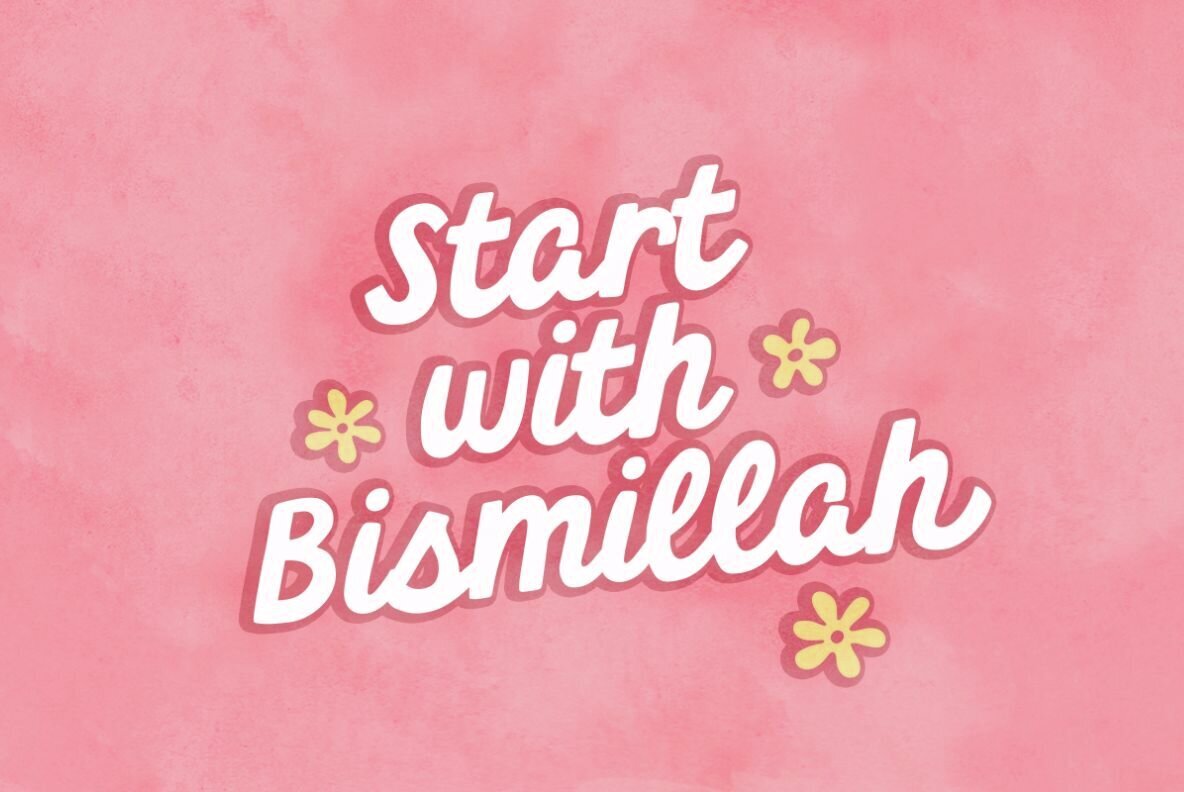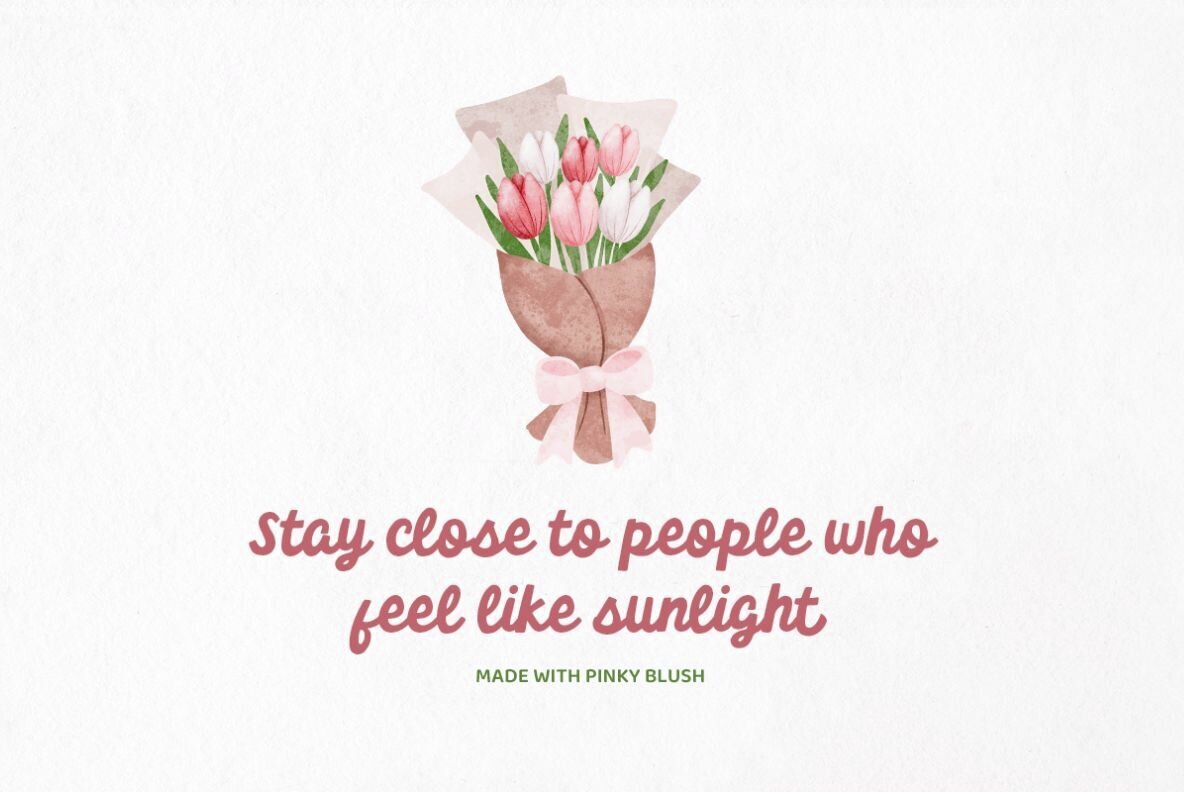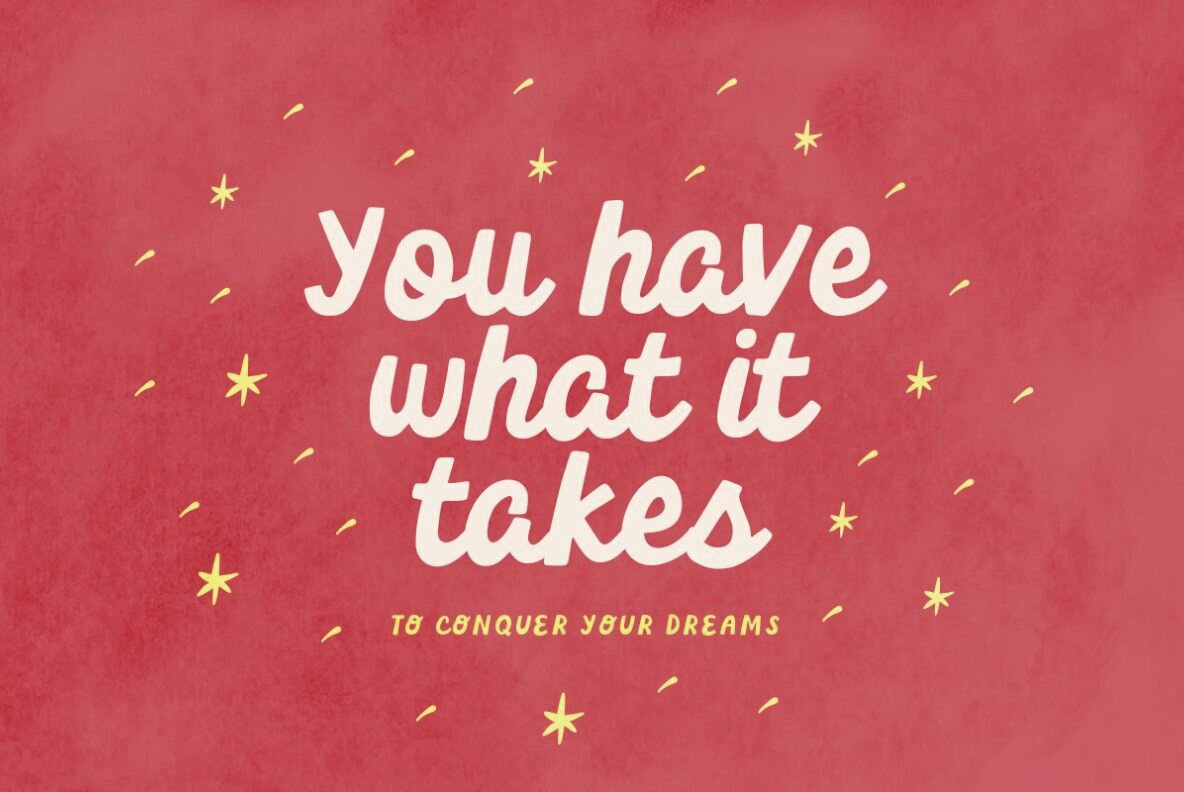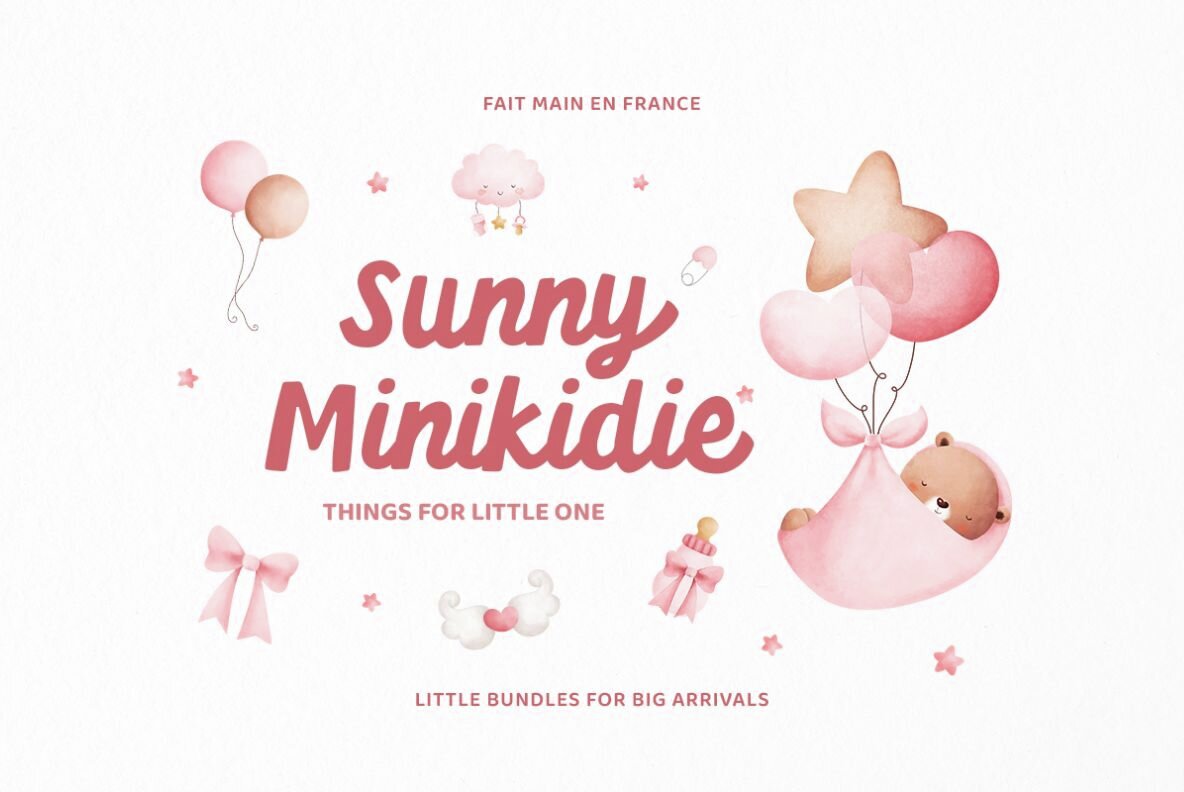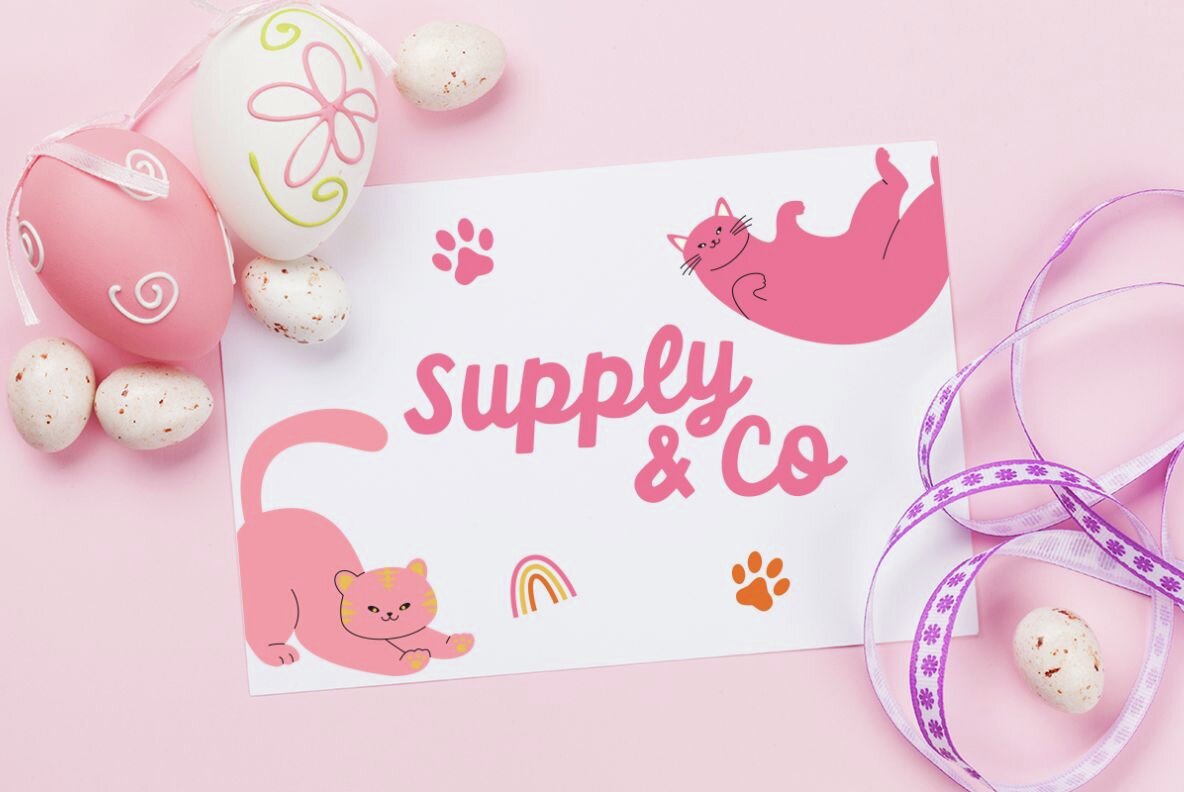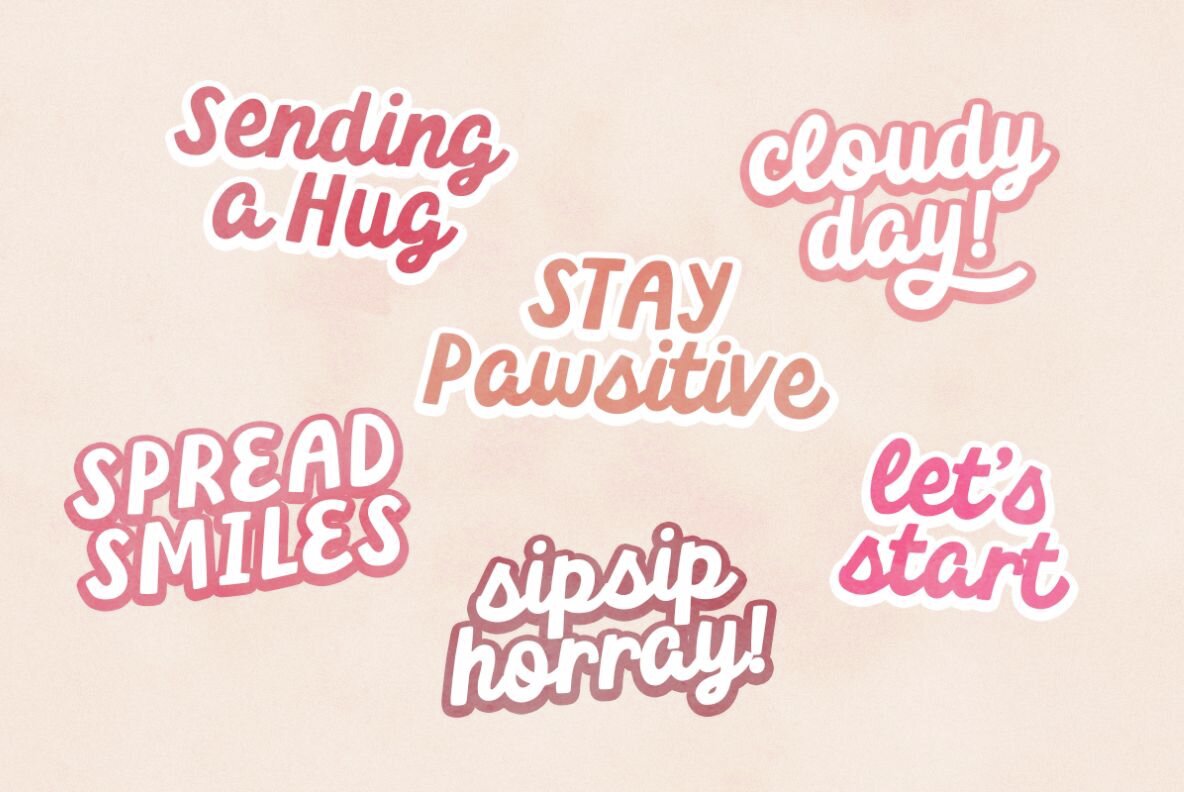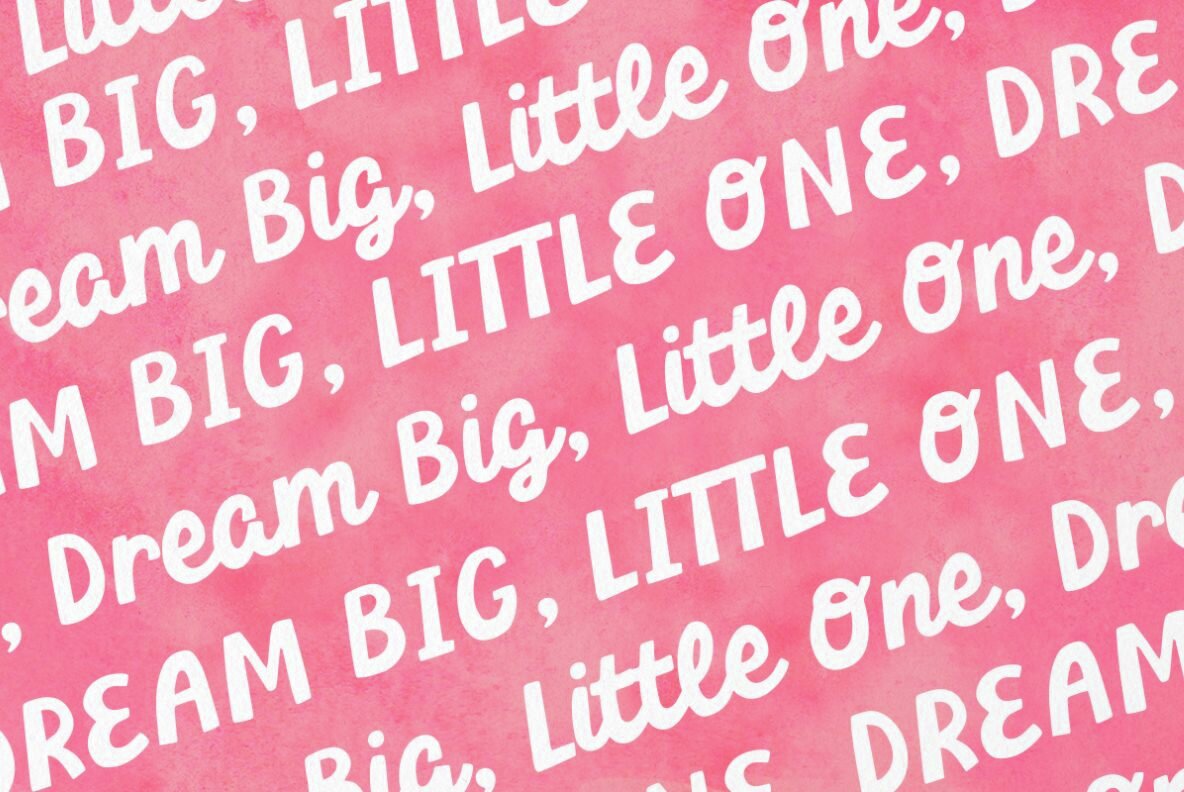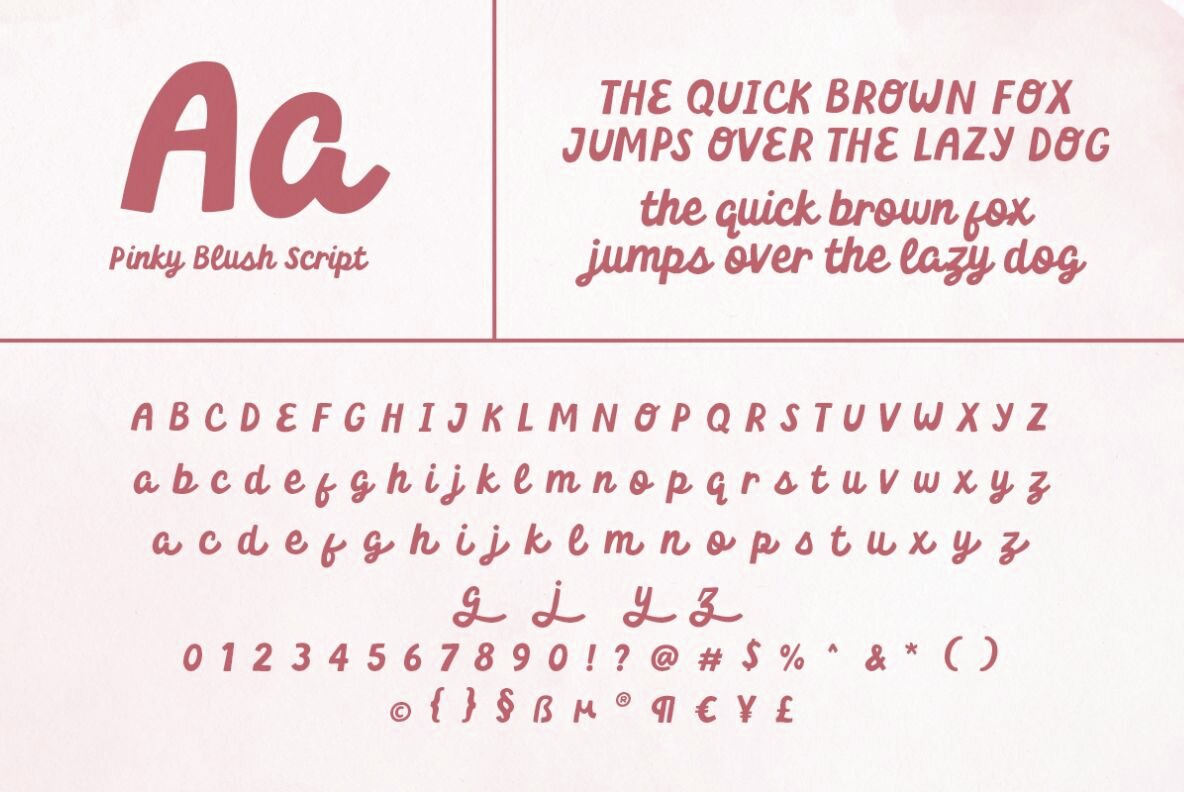
Pinky Blush Font
Pinky Blush Regular
Pinky Blush is a delightful script font that merges playful script with sans serif elements into a single, cohesive typeface. Its design allows both lowercase and uppercase letters to stand out individually, offering versatility without sacrificing harmony. Whether used for quotes, logos, or book covers, this font exudes a unique character that can bring creative projects to life.
With its multilingual support, Pinky Blush caters to a wide range of linguistic needs, broadening its applicability in various international contexts. Its inherent versatility makes it ideal for designers seeking a fresh, friendly aesthetic that adapts seamlessly to different design needs. Perfect for adding a touch of charm and warmth to your work, this font is a precious addition to any designer's toolkit.